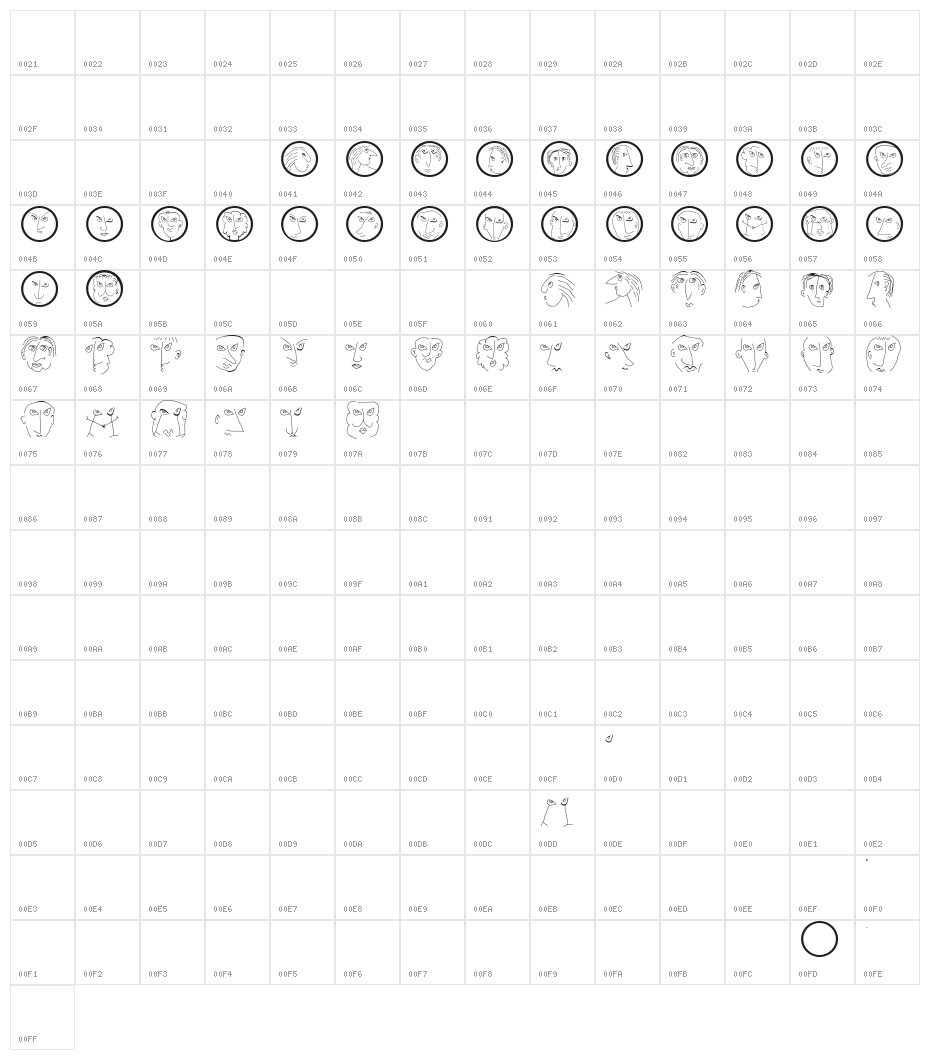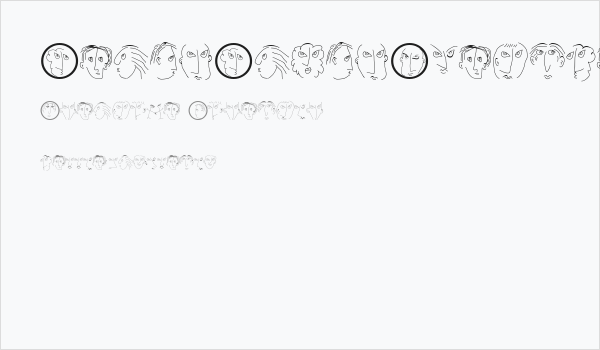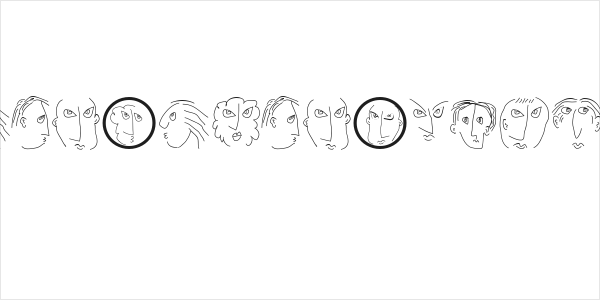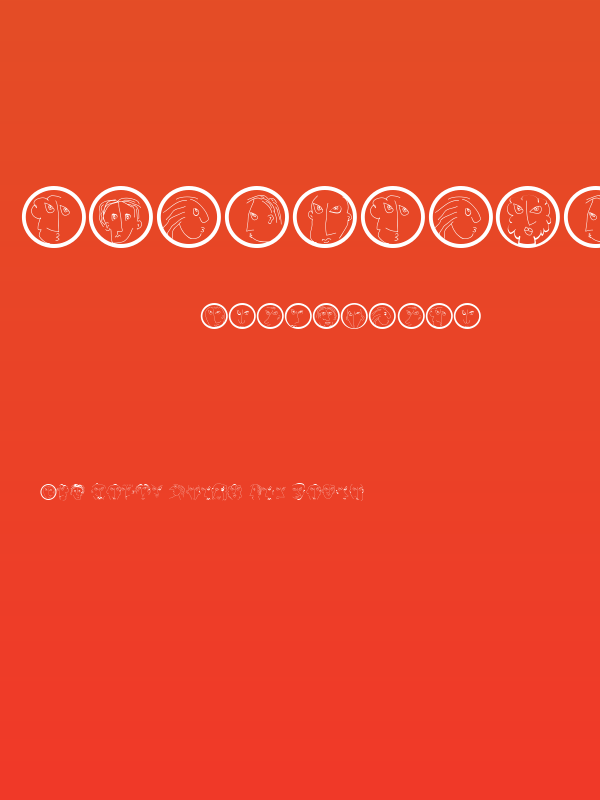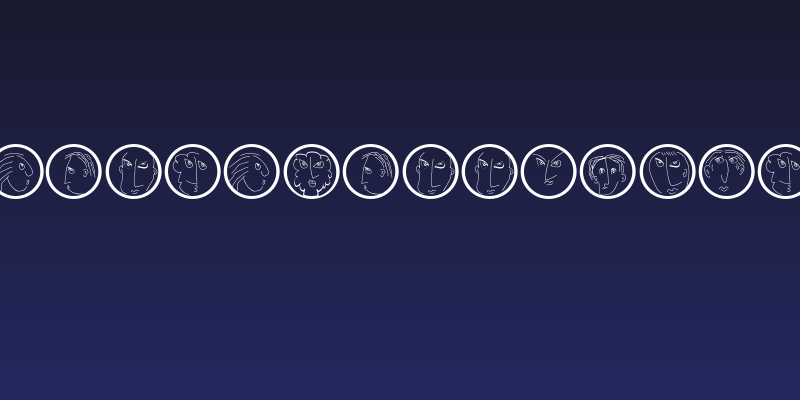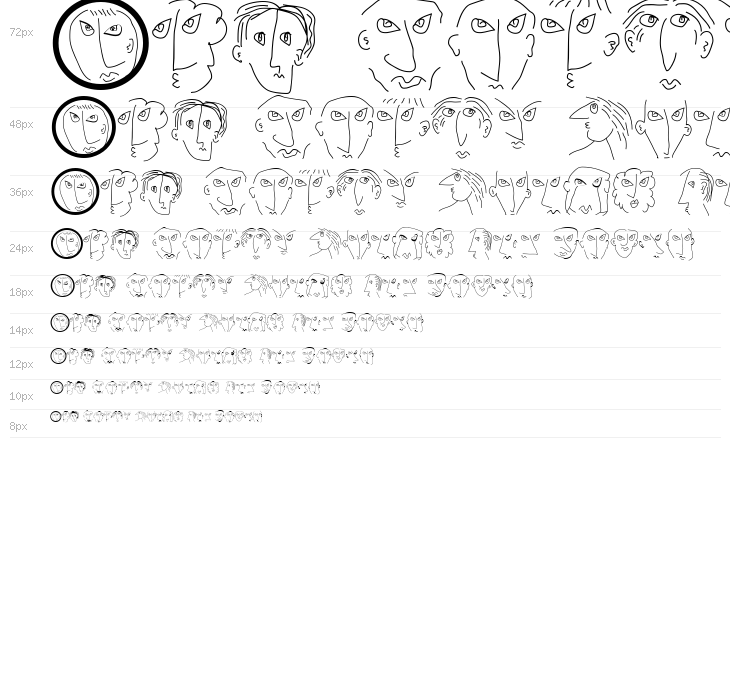
HeadsHandsSketches Font
HeadsHandsSketches Description
A whimsical, hand-drawn display font featuring abstract, sketch-like faces and heads as characters. Each glyph is composed of a single, continuous line, giving a playful and artistic feel. The style is loose and expressive, with varying proportions and unique facial features for each character.
| Overall Style | Decorative, Artistic, Whimsical |
| Use Case | Logos, Headlines, Posters, Artistic projects |
| Proposed Projects | Art posters, creative branding, album covers, editorial illustrations, children's books, event invitations. |